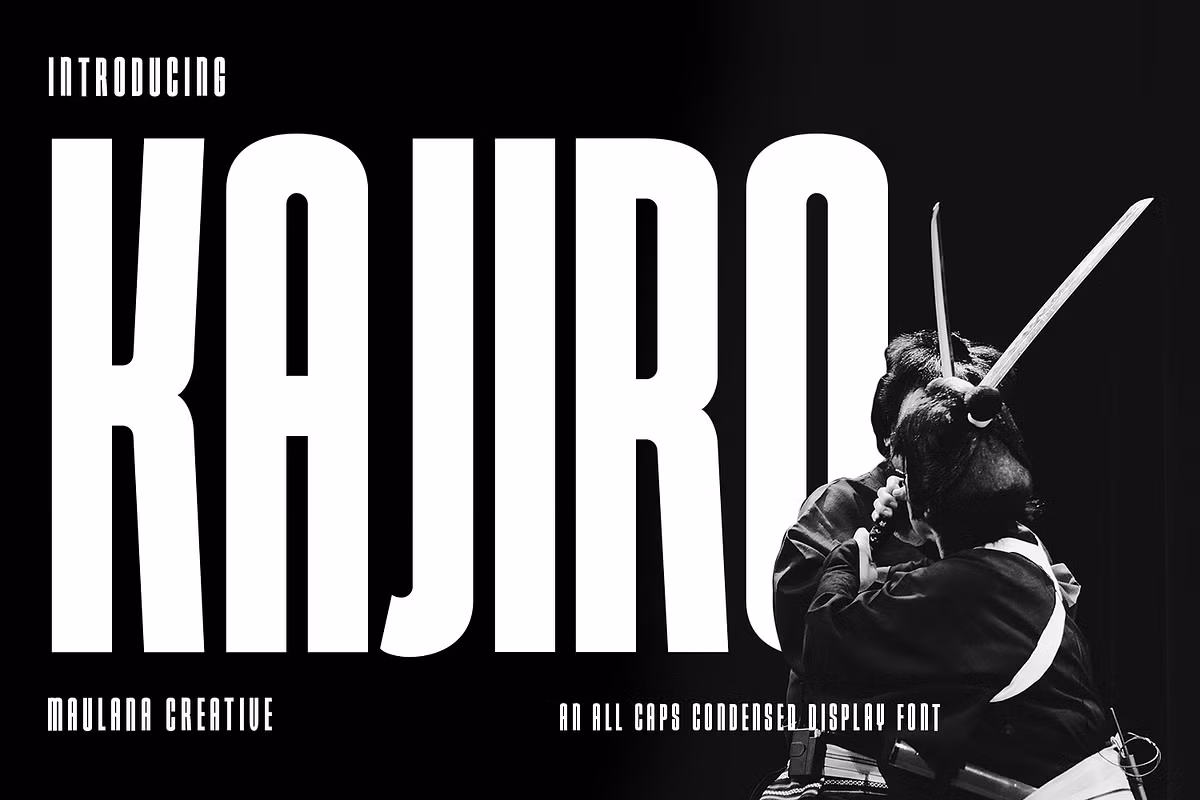
Kajiro Sans Condensed Display Font Free Download
Kajiro Sans Condensed Display Font Free Download is a modern and sleek typeface that combines a condensed design with strong geometric shapes, making it perfect for display purposes. Its bold, clean lines and minimalist structure allow it to stand out in headlines, logos, posters, websites, and more.
This font is designed for projects that require high readability and a contemporary, professional feel. Whether you're designing for a tech brand, a minimalist magazine, or a creative campaign, Kajiro Sans Condensed Display Font Free Download offers a powerful and stylish solution for your typography needs.